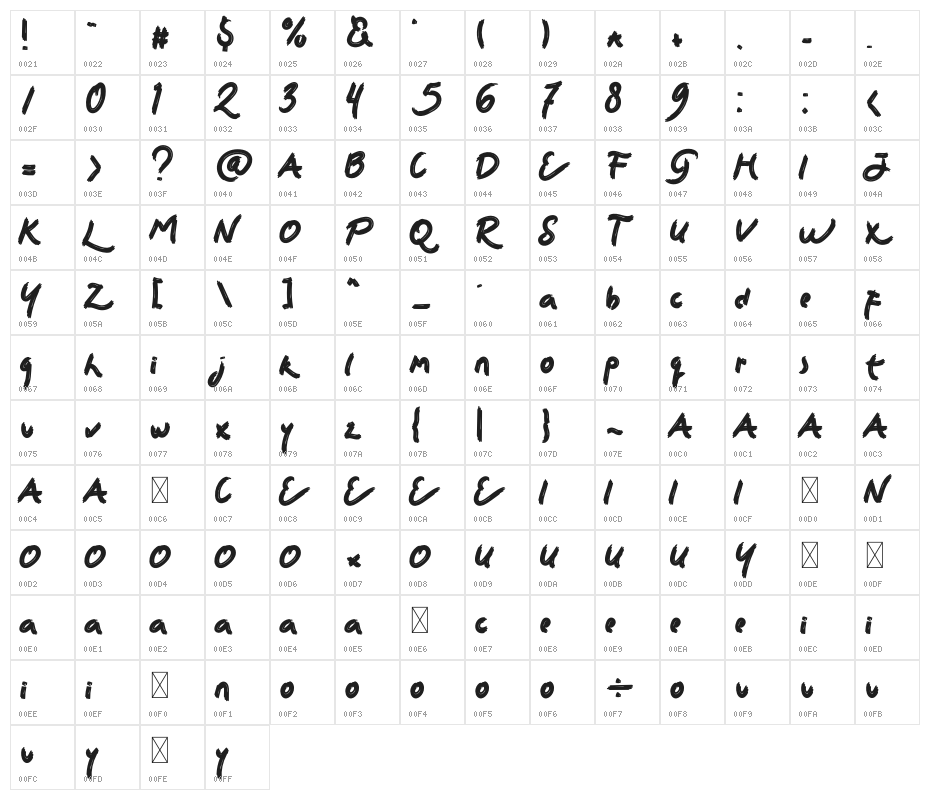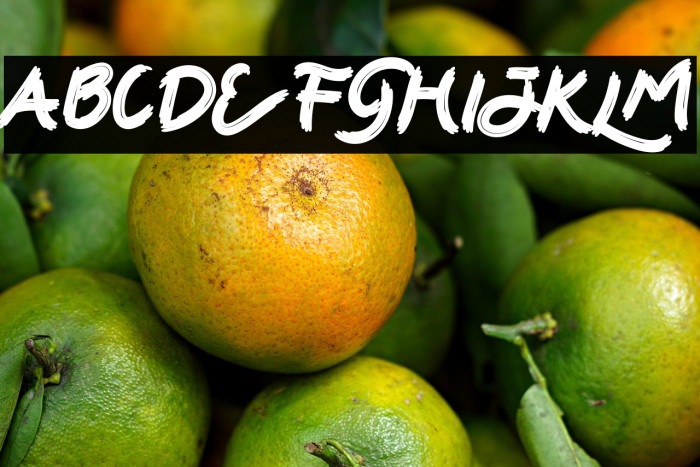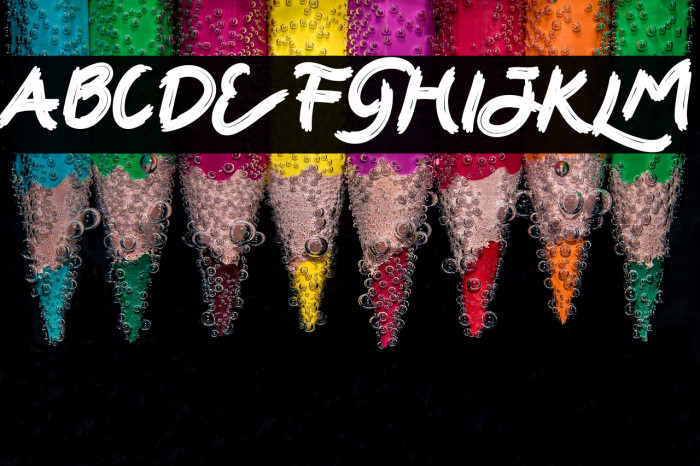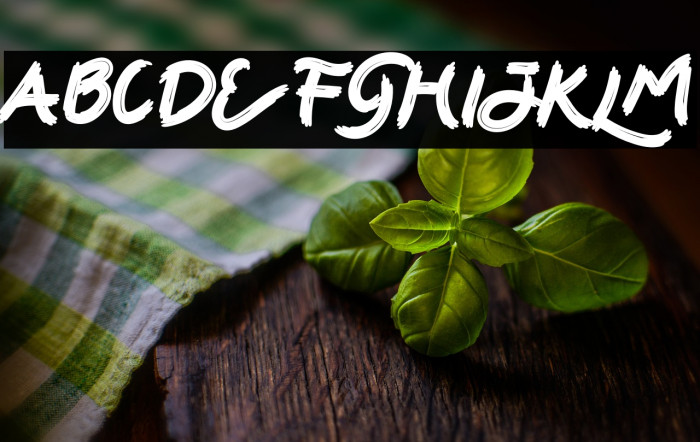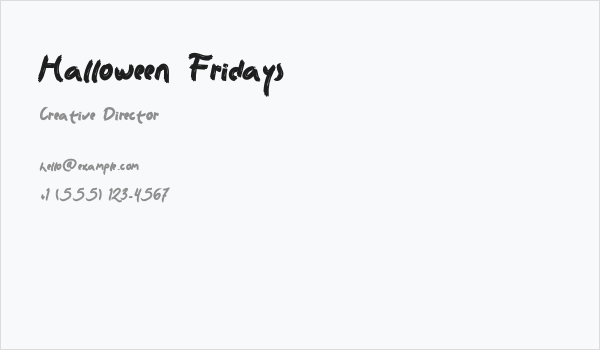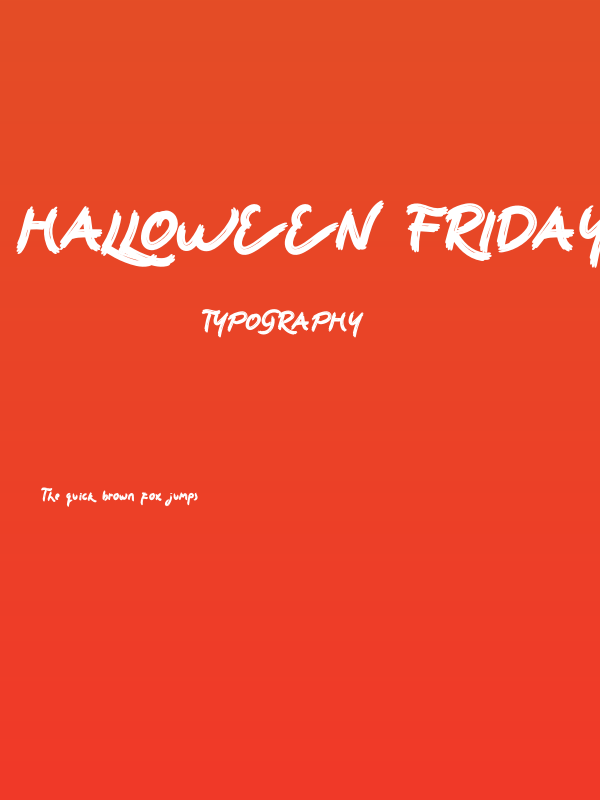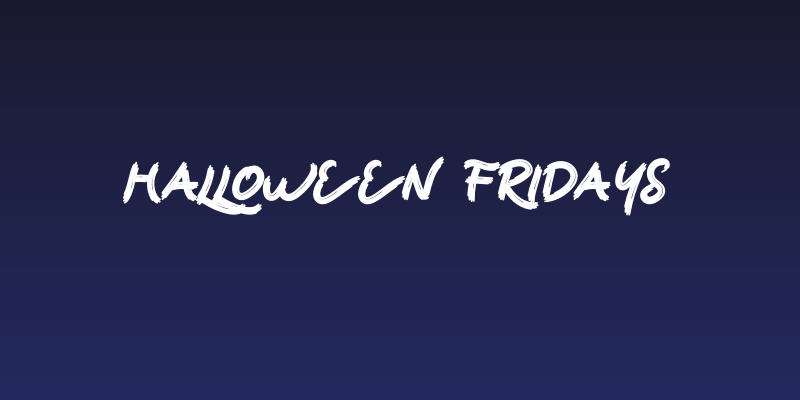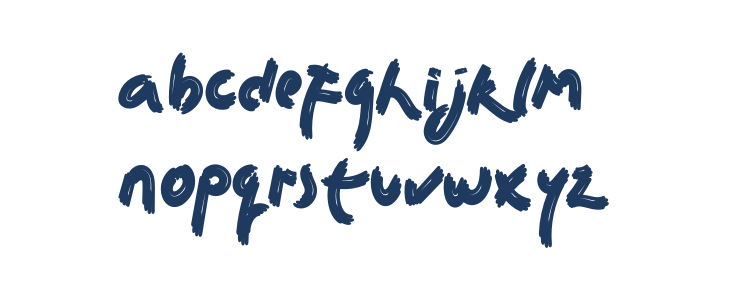
Halloween Fridays Font
Halloween Fridays Description
This font features a bold, expressive style with a brush-like texture that gives it a dynamic and energetic appearance. The letters are slightly slanted, adding a sense of motion and fluidity. The strokes are thick and uneven, creating a hand-painted effect that is both artistic and informal. The uppercase and lowercase letters maintain a consistent style, while the numerals and special characters blend seamlessly with the overall design. This font exudes a playful and creative vibe, making it ideal for projects that require a touch of personality and flair.